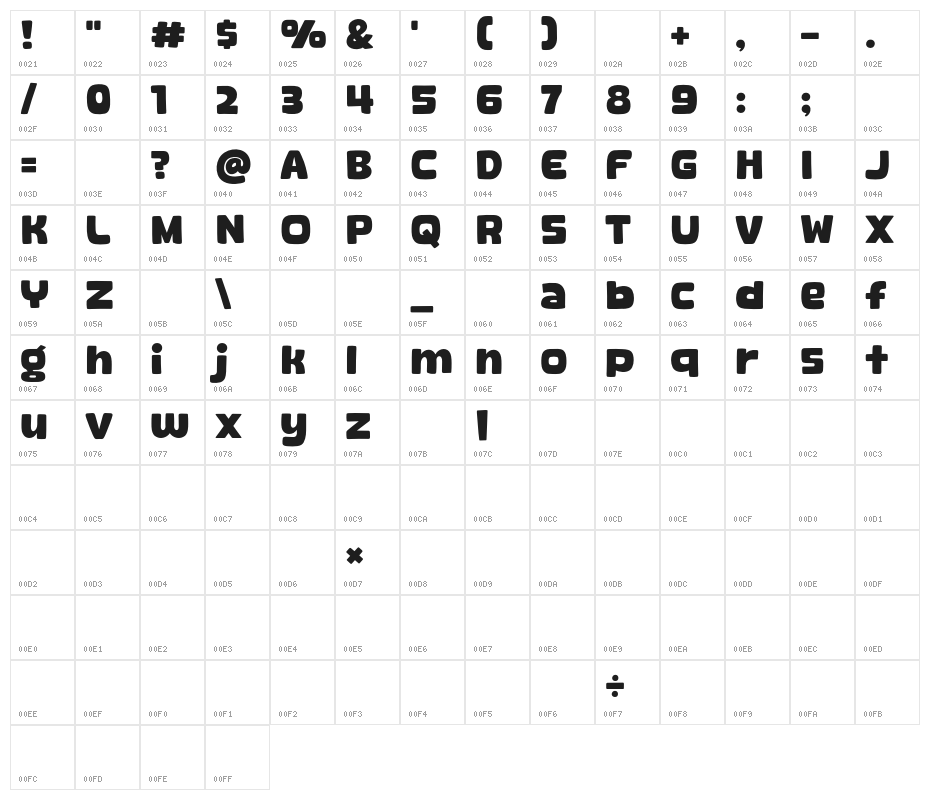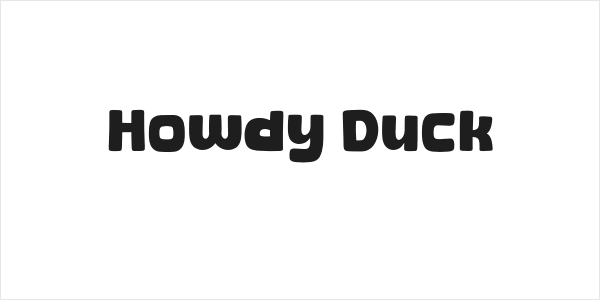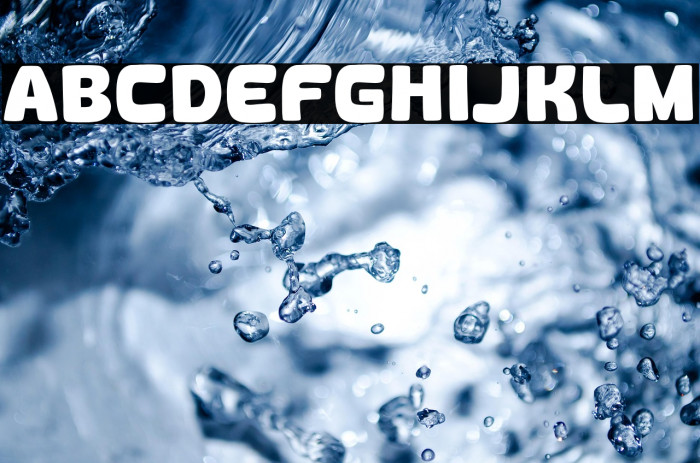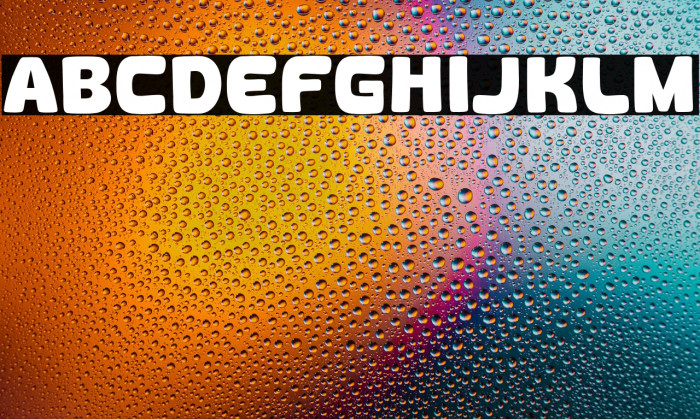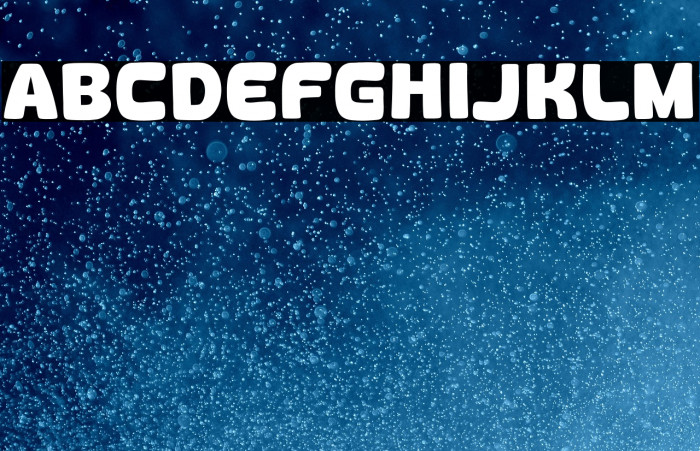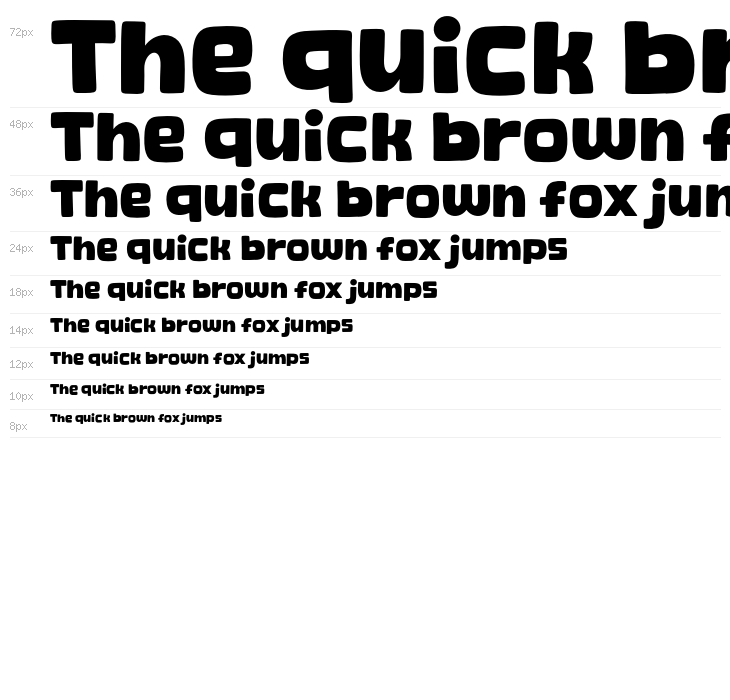
Howdy Duck Font
Howdy Duck Description
This font features a playful and bold design with rounded edges and a chunky appearance. The letters are uniformly thick, giving it a strong presence and making it highly legible. The style is consistent across uppercase, lowercase, numbers, and special characters, maintaining a cohesive look. The overall design is friendly and approachable, suitable for a variety of creative applications.
| Proposed Projects | Ideal for children's books, playful branding, posters, and casual invitations. |